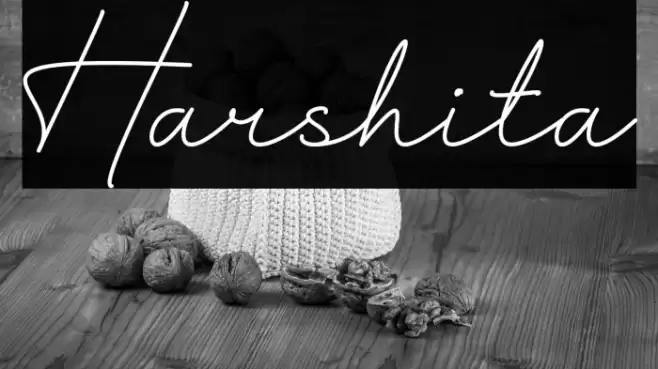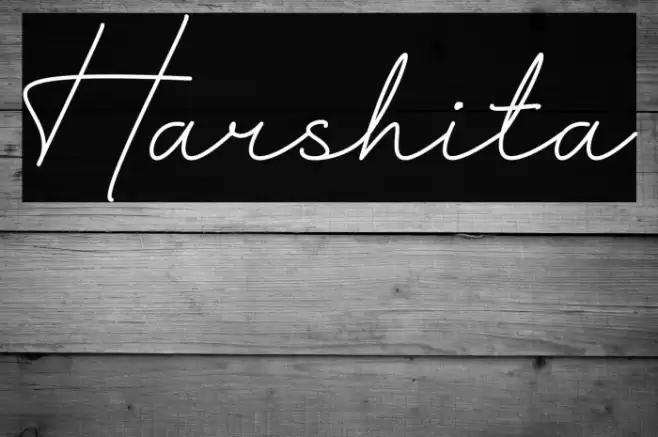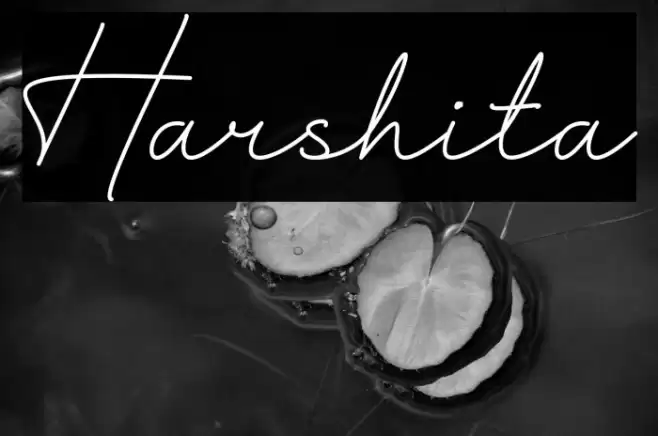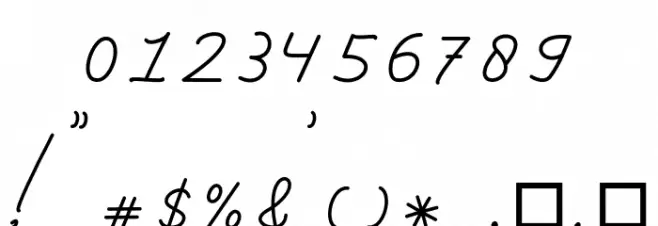
Harshita Font
Harshita Description
This font features an elegant, flowing script style with a handwritten appearance. The characters are connected, creating a seamless and continuous look that mimics natural handwriting. The uppercase letters are slightly larger and more ornate, while the lowercase letters maintain a consistent, smooth flow. The numerals and special characters are designed to match the cursive style, adding to the overall cohesive appearance. This font exudes a sense of sophistication and grace, making it ideal for formal invitations, personal branding, or any project that requires a touch of elegance.
An elegant, flowing script font with a handwritten appearance from Regular fonts.
- Proposed Projects: Ideal for wedding invitations, personal branding, elegant logos, and formal stationery.
- Overall Style: Elegant, Handwritten
- Use Case: Invitations, Branding, Logos